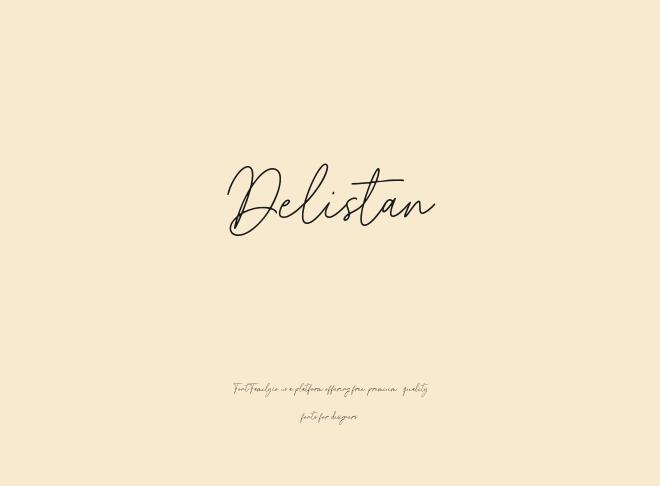
Delistan Font
Delistan Font is a modern and playful handwritten typeface, designed by Creative Foundry. With its unique and attractive characters, it provides a fresh and creative style to your designs. Delistan Font is perfect for logos, branding, social media posts, and any design that requires a distinct and personal touch. It's a great alternative to common handwritten fonts, offering a more dynamic and fluid look. With its modern display style, Delistan Font can make your design stand out from the crowd. Despite its playful nature, it maintains a level of sophistication, making it a versatile choice for a wide range of design projects. Download Delistan Font today and bring a unique freshness to your designs.